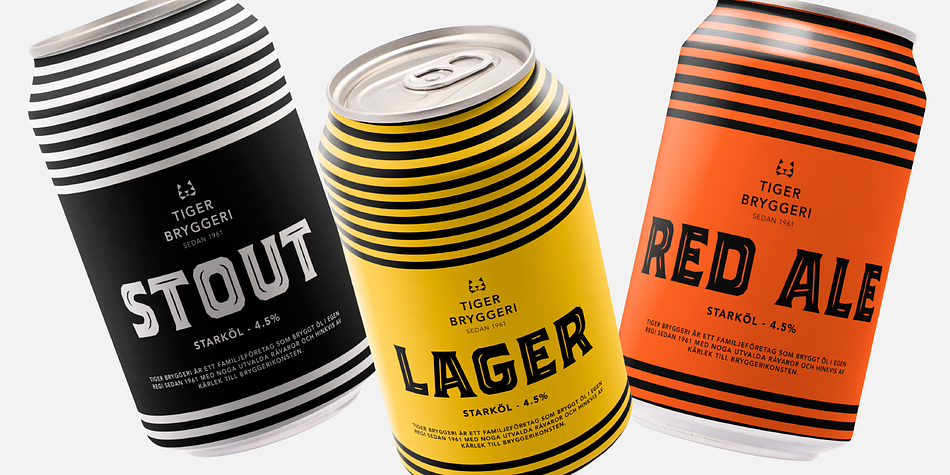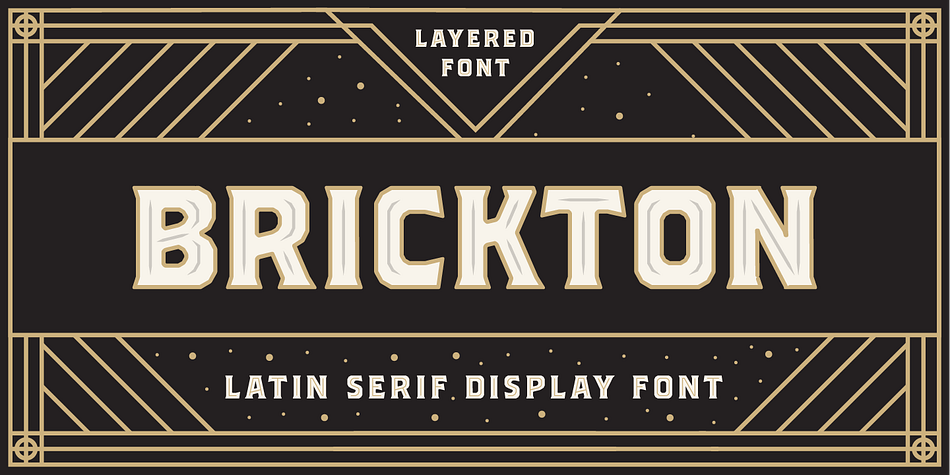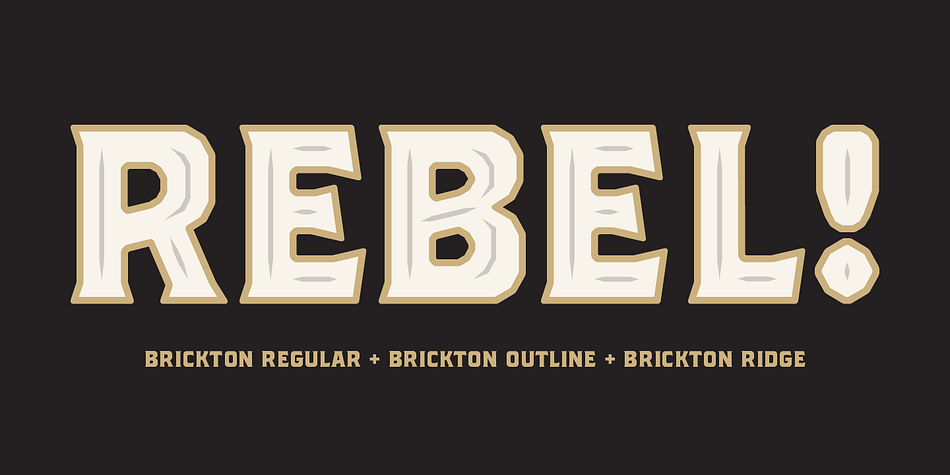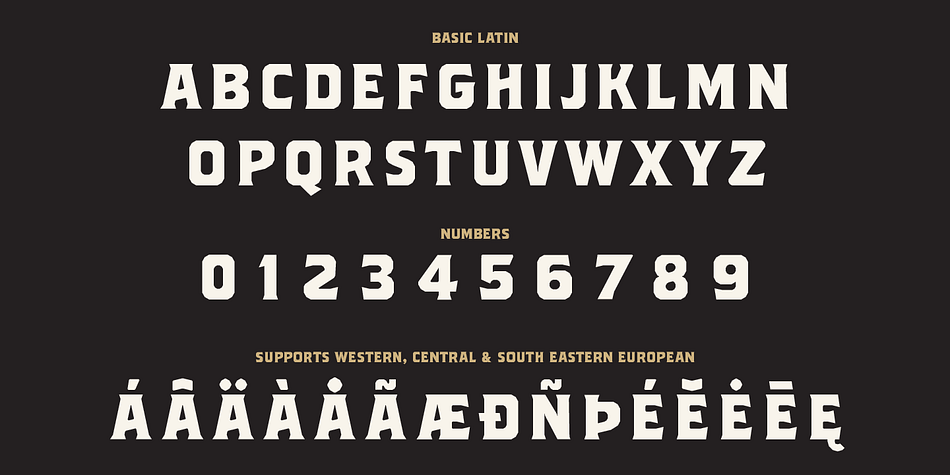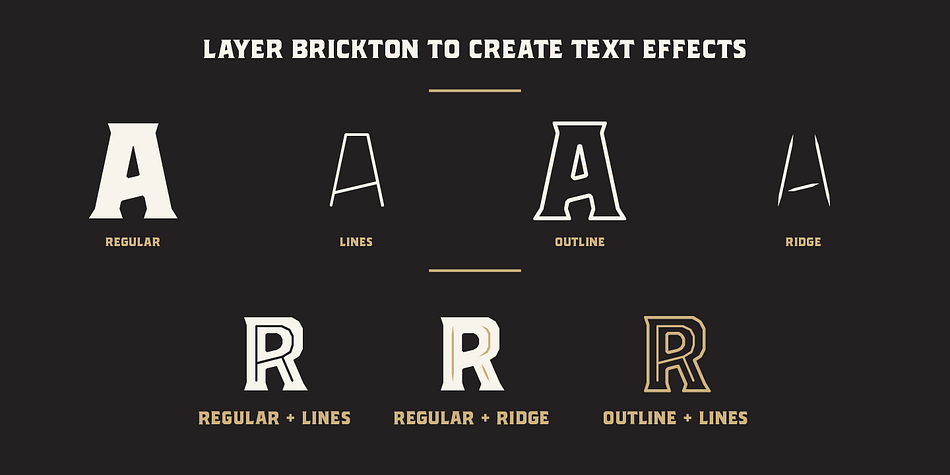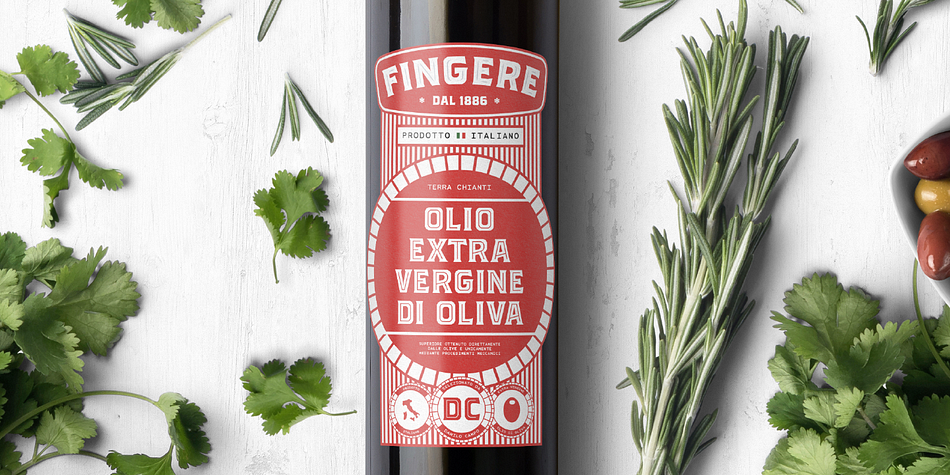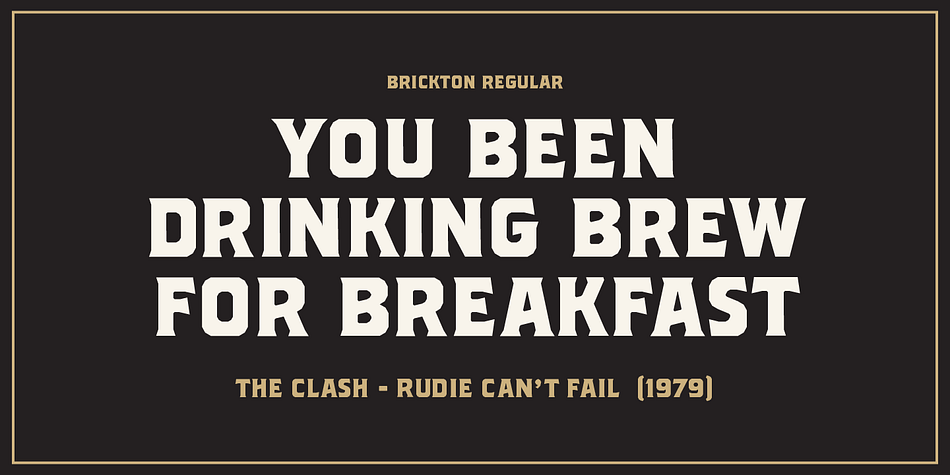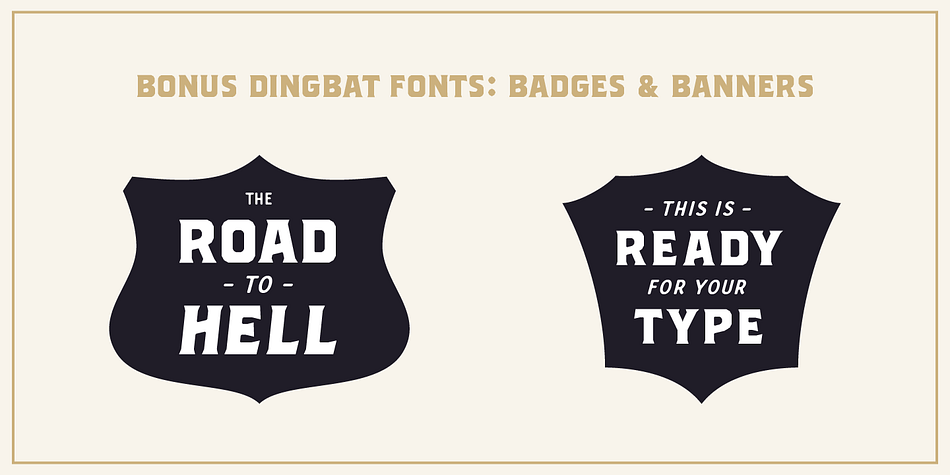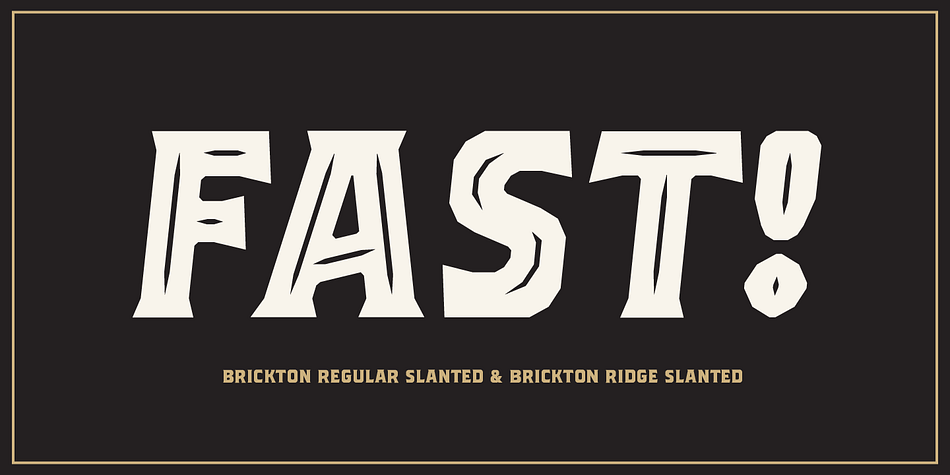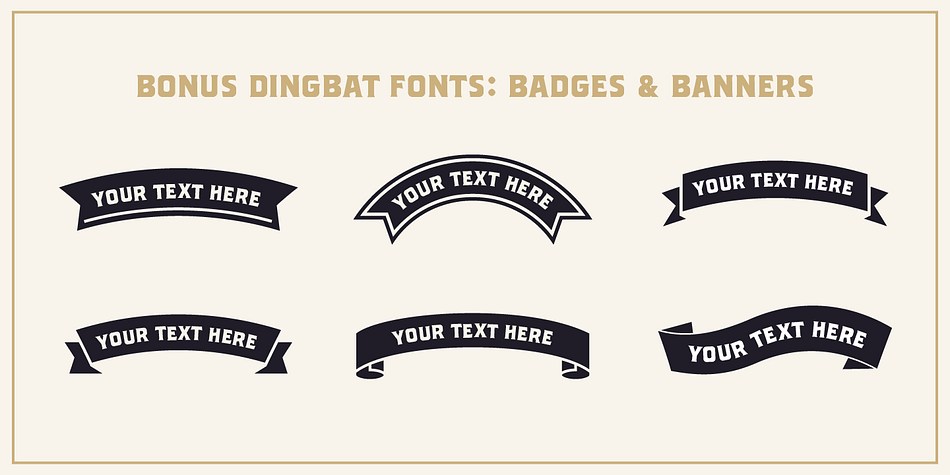
Designed by Daniel Feldt, Brickton is a display serif, wood type and dingbat font family. This typeface has ten styles and was published by Great Scott.
Brickton might seem dominating with it’s bold characters and pointy serifs. Getting up close with it reveals that although there are no curves in characters, corners and arches are chamfered to give at least some softness to it.
Brickton uses a layered font system that let’s you superimpose styles. Use Brickton Regular and Brickton Lines on top of each other to create a design with text that has an inline style to it. Or use Brickton Ridge for another type of line style.
In total there are 8 styles of Brickton as well as two bonus fonts for banners & badges that works great with use of the Brickton typeface family.